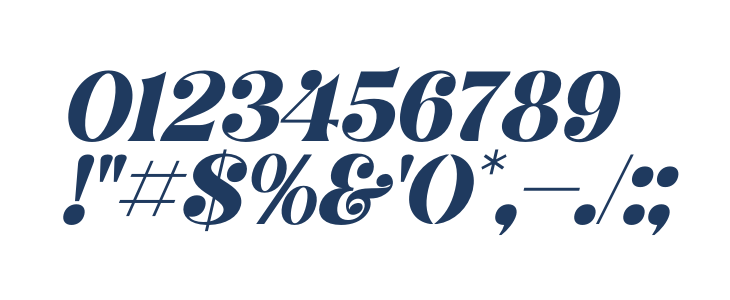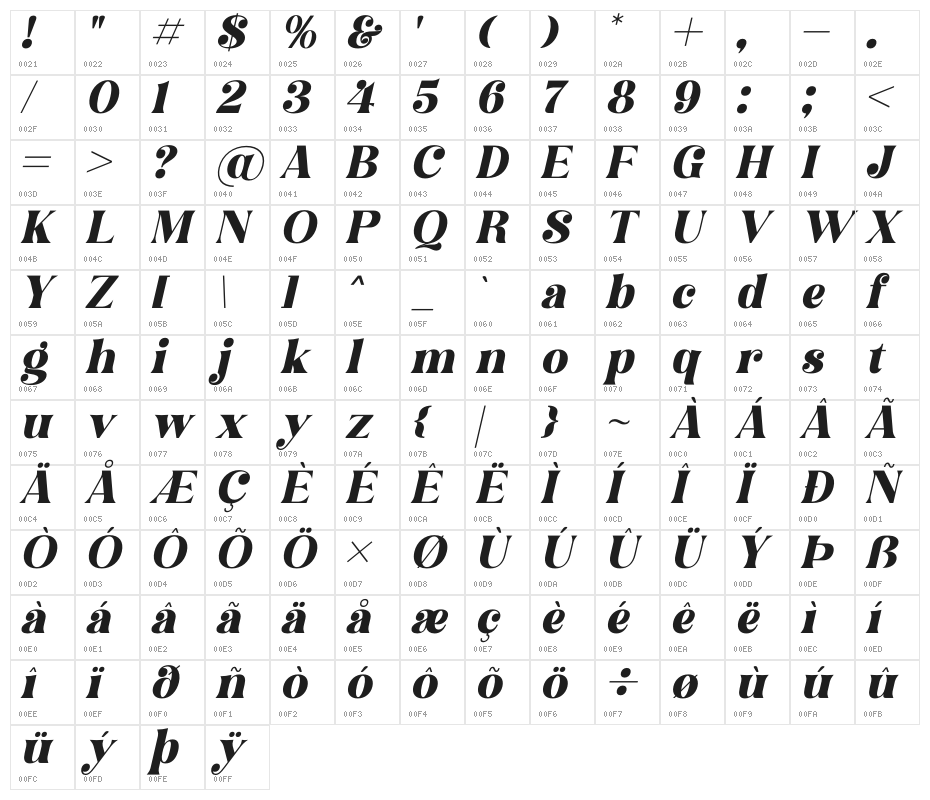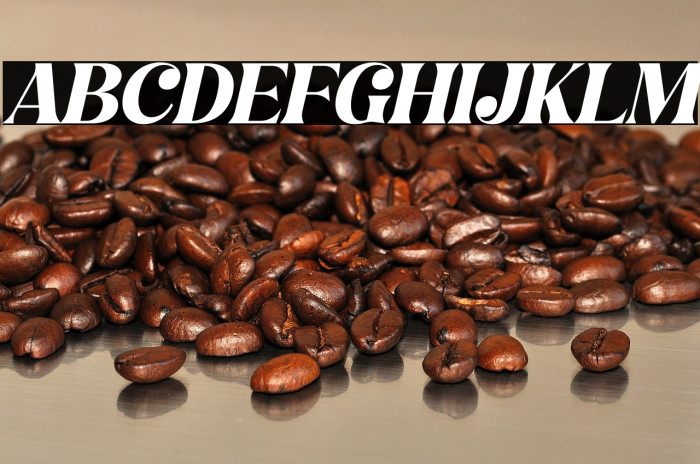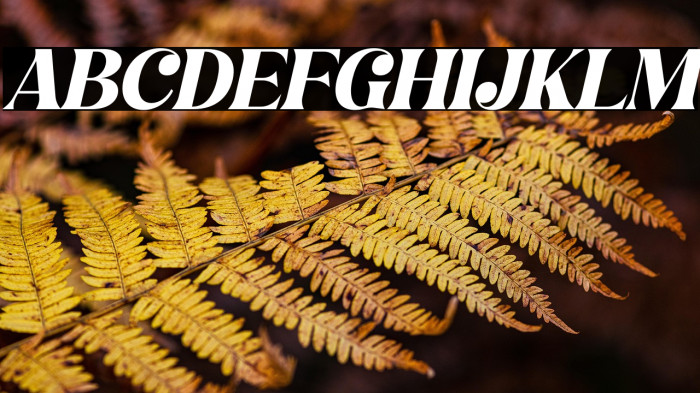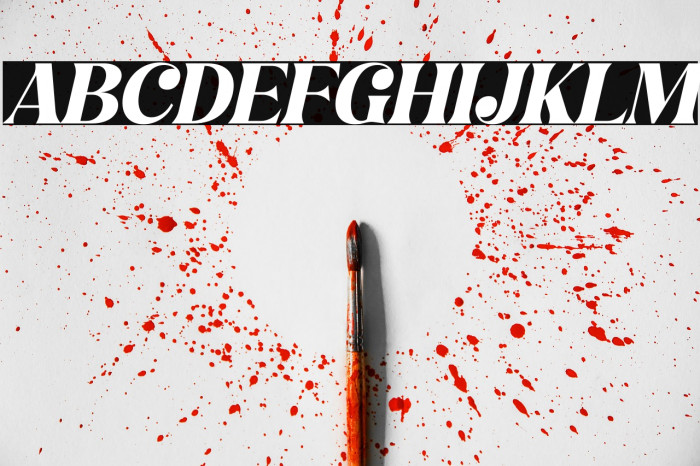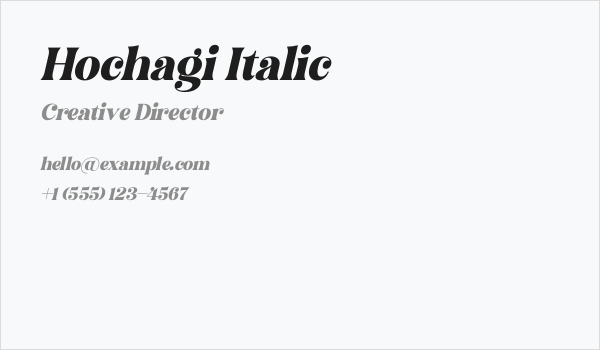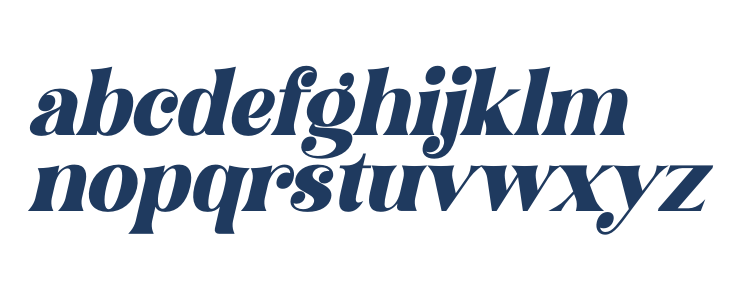
Hochagi Italic Font
Hochagi Italic Description
This font exudes a bold and dynamic presence with its italicized style, characterized by sharp serifs and a pronounced slant. The uppercase letters are robust and commanding, while the lowercase letters maintain a consistent flow, enhancing readability. Numbers are equally bold, ensuring visibility and impact. The special characters are crafted with the same attention to detail, providing a cohesive look across all glyphs. The overall design is both elegant and assertive, making it suitable for a variety of creative applications. Its high contrast in stroke thickness adds to its dramatic appeal, making it ideal for projects that require a strong visual statement.
| Use Case | Headlines, Logos, Editorial design |
| Proposed Projects | Ideal for branding, editorial design, posters, and headlines that require a strong, elegant presence. |